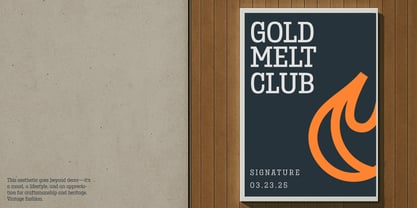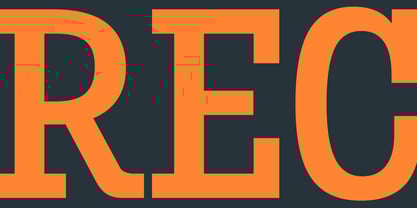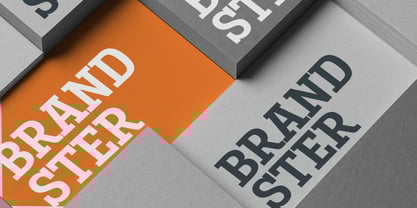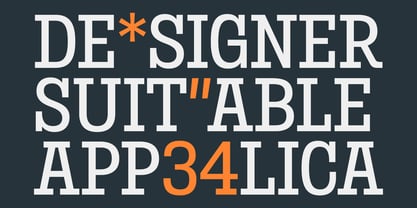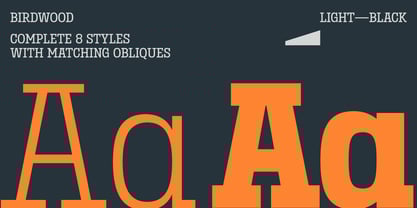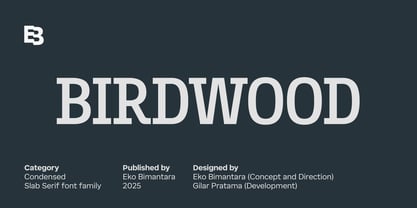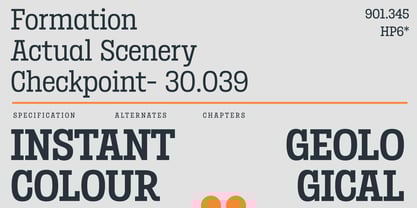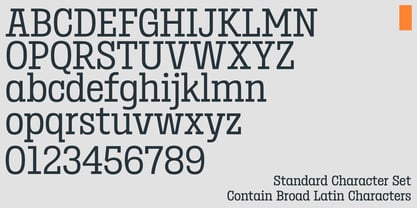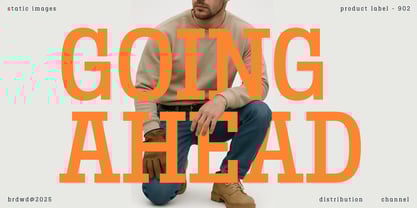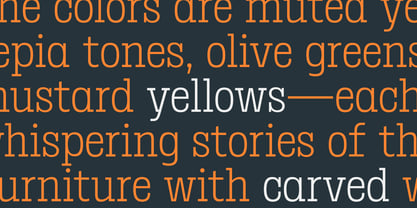
Birdwood
Birdwood is a condensed slab serif font family that brings a bold and commanding presence to any design. With a strong, sturdy character and a distinctly compact structure, Birdwood exudes confidence and functionality while maintaining a sense of style. The family includes 16 styles ranging from Thin to Black, each with matching italics, offering versatile weight options for diverse typographic needs. Though originally crafted with display use in mind—perfect for impactful headlines, branding, and logos—Birdwood’s clear letterforms also lend themselves well to short blocks of text without sacrificing legibility. Its robust slab serifs and condensed form make it ideal for themes that require a powerful visual identity, including vintage, rustic, and sport-inspired aesthetics. Whether used for websites, brand identities, editorial layouts, or packaging, Birdwood delivers a durable typographic voice that stands out across a broad spectrum of modern and expressive design contexts.
Birdwood